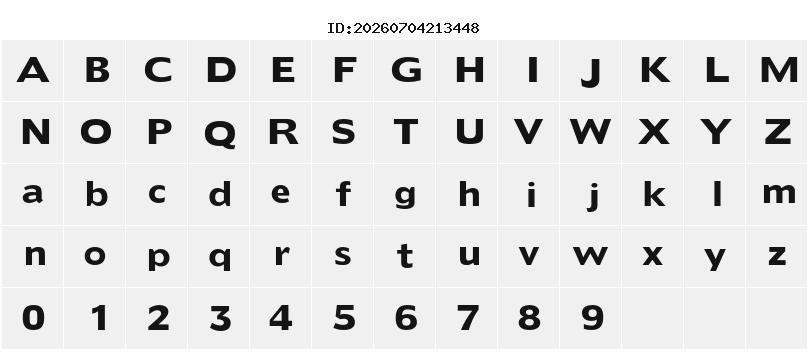
Doric Preview
• Font Name: Doric
• Full Font Name: Doric-Bold
• PostScript Name: Doric-Bold
About Doric.otf
Doric.otf is a modern, elegant sans-serif font designed for ultimate readability and visual harmony. Perfect for branding, headlines, web design, and print materials.